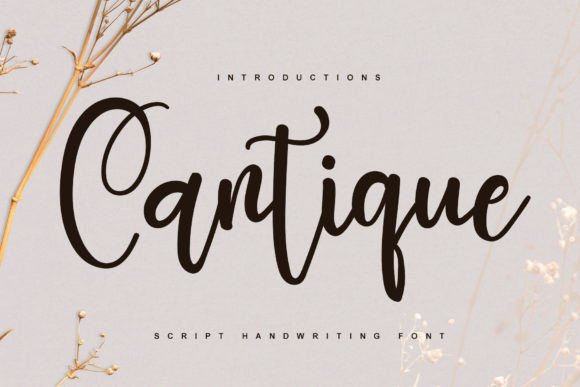
Step into a realm of timeless elegance and impeccable artistry with Cantique Font, a captivating script font family that will redefine your creative expressions. Inspired by the enduring allure of classic calligraphy, Cantique exudes sophistication and refinement in every stroke.
With its contemporary atmosphere and balanced structure, this font is meticulously crafted to elevate your projects to new heights of beauty and impact. Whether you're a seasoned designer or just starting your creative journey, Cantique will effortlessly enhance the visual appeal of your work.
Unleash your creativity and let Cantique's flowing lines and graceful curves dance across your designs, adding a touch of timeless charm and elegance. This versatile font family is perfect for a wide range of projects, from heartfelt wedding invitations and captivating social media posts to striking logos and eye-catching branding materials.
Indulge in the limitless possibilities of Cantique and let your imagination soar. From delicate and airy compositions to bold and impactful statements, this font will effortlessly adapt to your vision, lending its timeless grace to every project you undertake.
But Cantique is more than just a font; it's an experience. It's a journey into the world of classic calligraphy, where each letterform is carefully crafted to convey emotions and tell stories. With Cantique, your designs will transcend the ordinary and become true works of art.